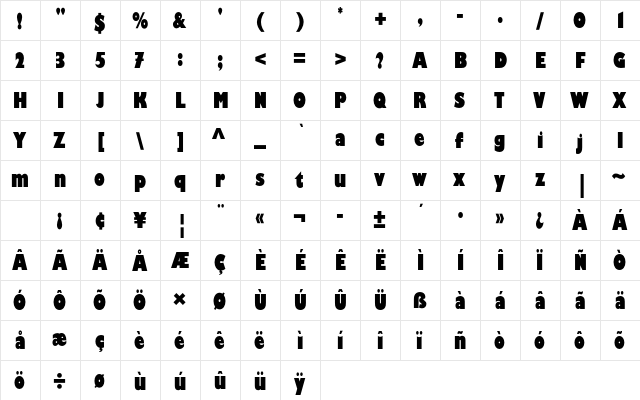
Gill Kayo Condensed Std Regular
| Designer | Monotype |
Design Context for Gill Kayo Condensed Std Typeface
Gill Kayo Condensed Std offers clean, dependable letterforms without strong stylistic allegiance, making it a practical choice for designers who need flexibility. The condensed width makes it efficient for tight spaces without sacrificing legibility.